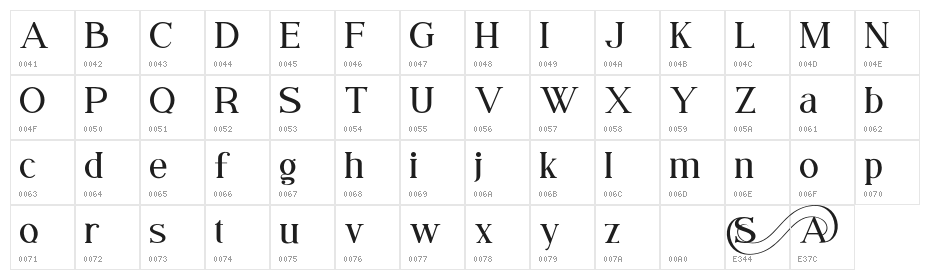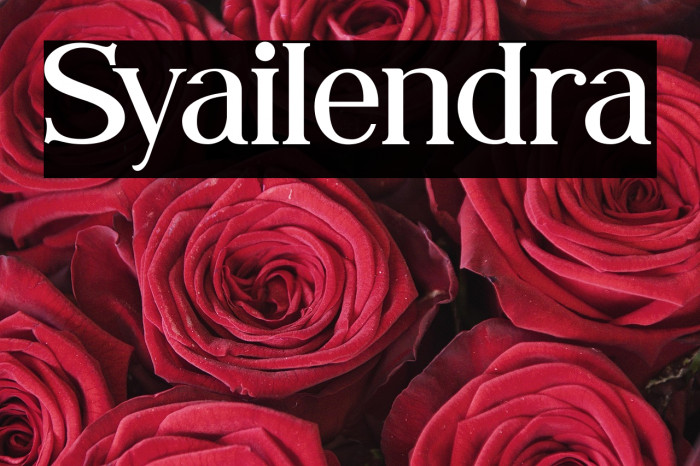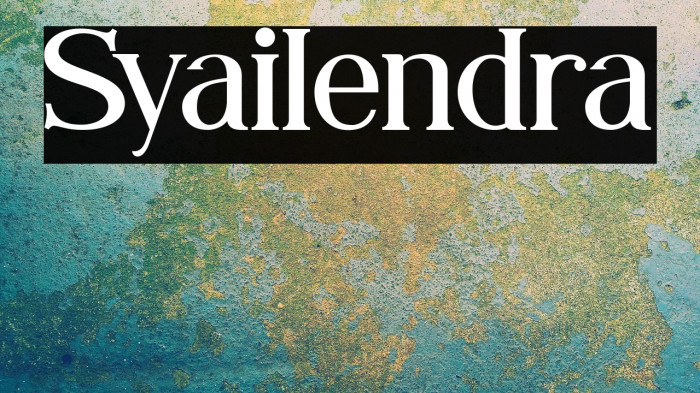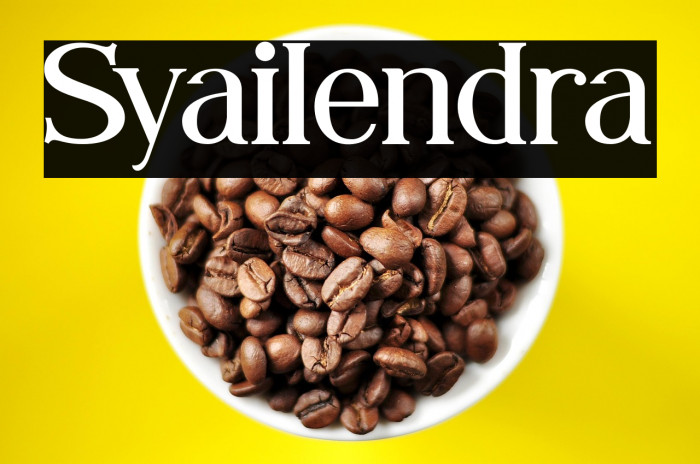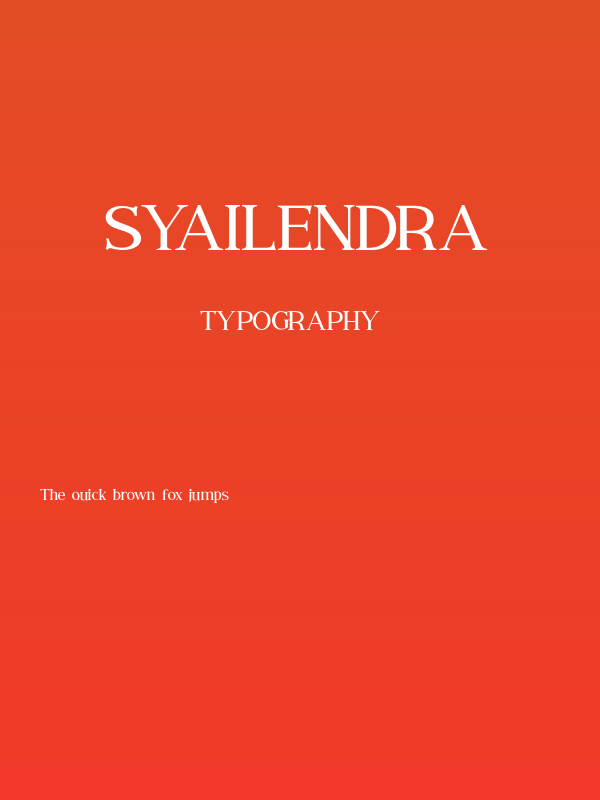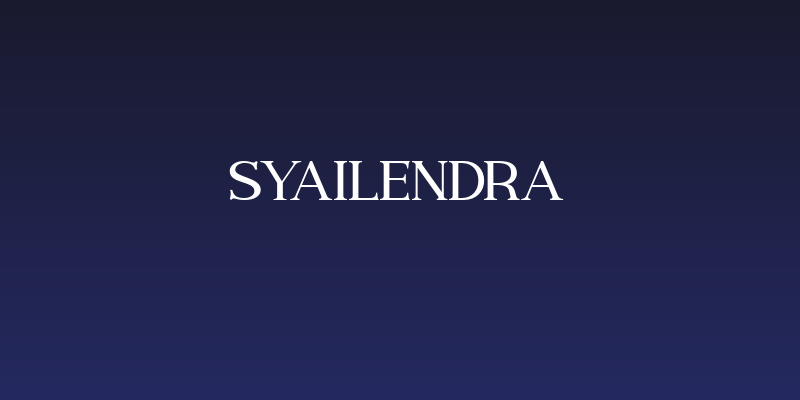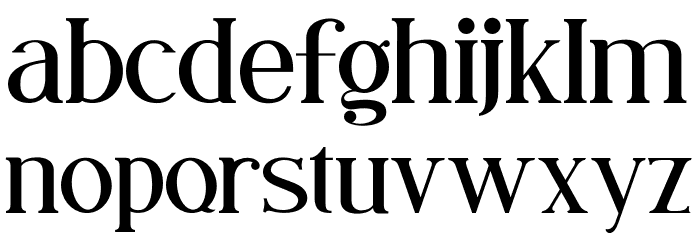
Syailendra Font
This font features a classic serif style with elegant, thin strokes and subtle curves. The uppercase letters are tall and stately, while the lowercase letters maintain a consistent height, offering a harmonious balance. The serifs are pronounced yet refined, adding a touch of sophistication. The overall design is clean and readable, making it suitable for both formal and contemporary applications. The spacing between characters is moderate, ensuring clarity and legibility. This font exudes a timeless appeal, perfect for projects that require a touch of elegance and tradition.
| Proposed Projects | Ideal for book covers, formal invitations, branding, and editorial design. |